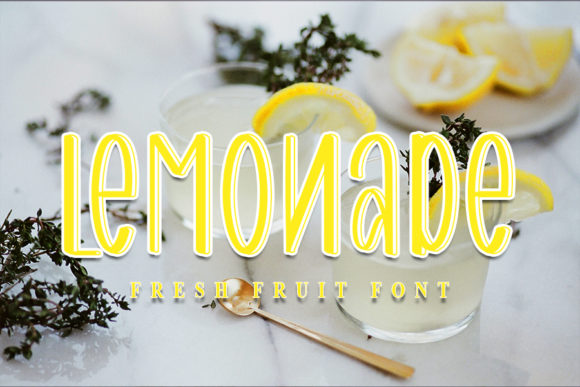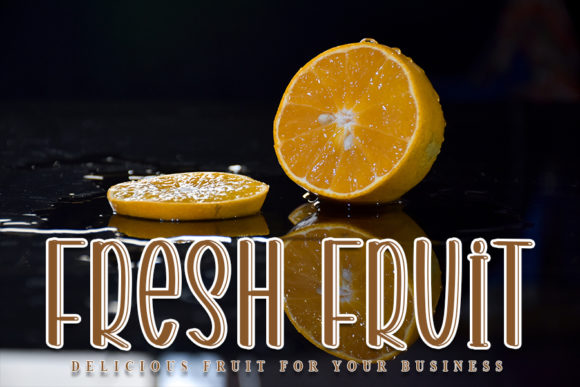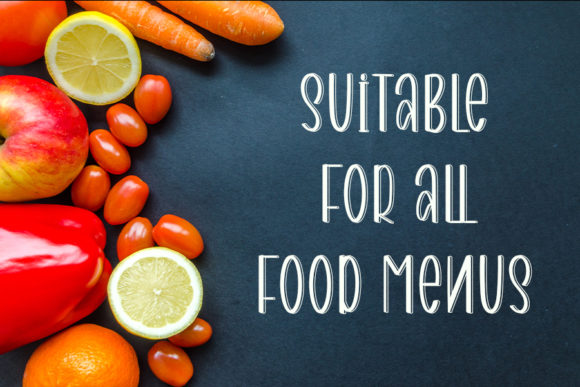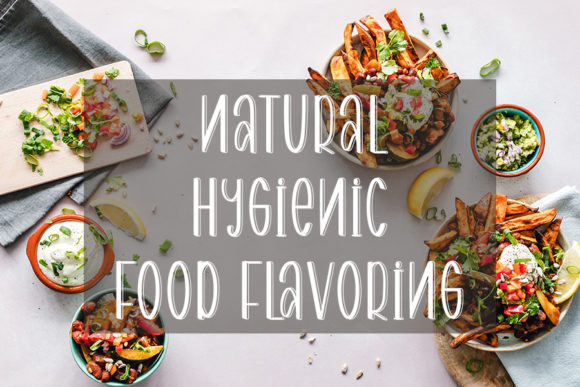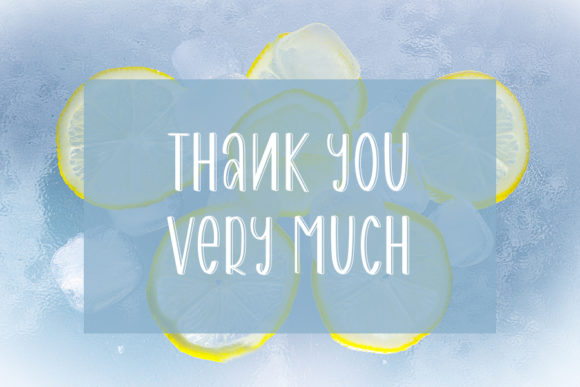
Lemonade Font
About Lemonade Font
Lemonade feels modern and fun. This great handwritten font looks down-to-earth, readable and, ultimately, incredibly versatile. Use it for branding, headings, wedding designs, invitations, signatures, logos, labels, and much more!